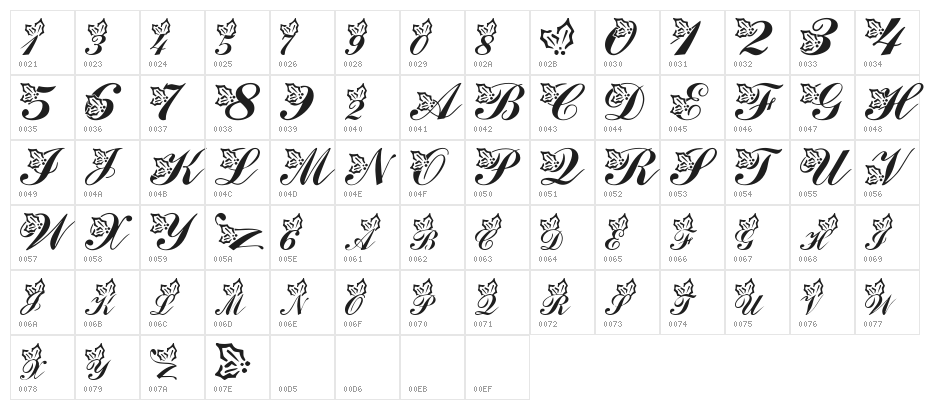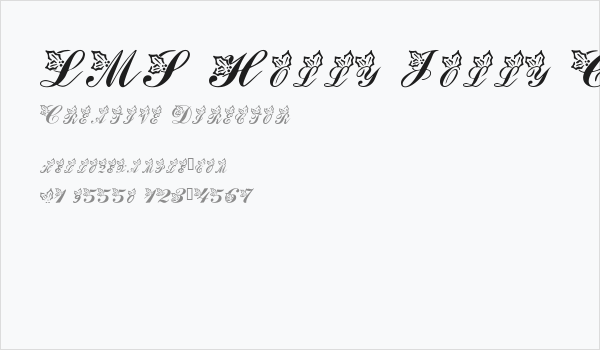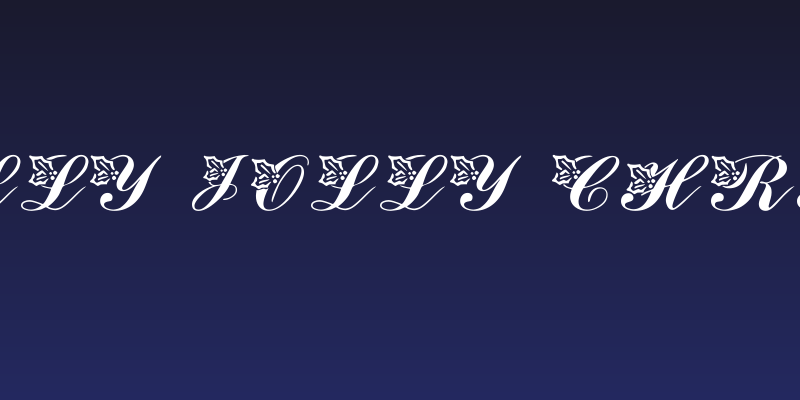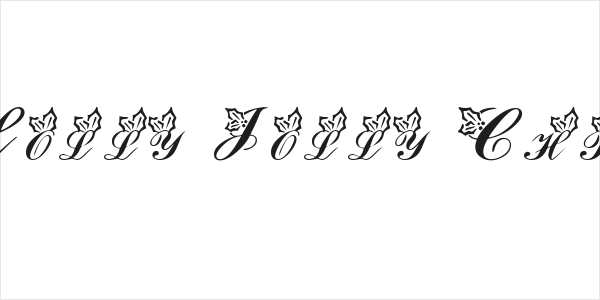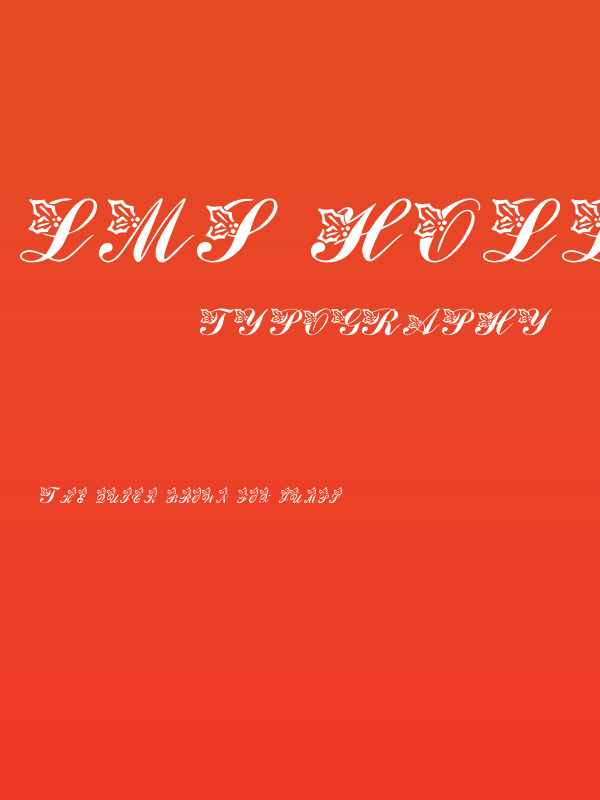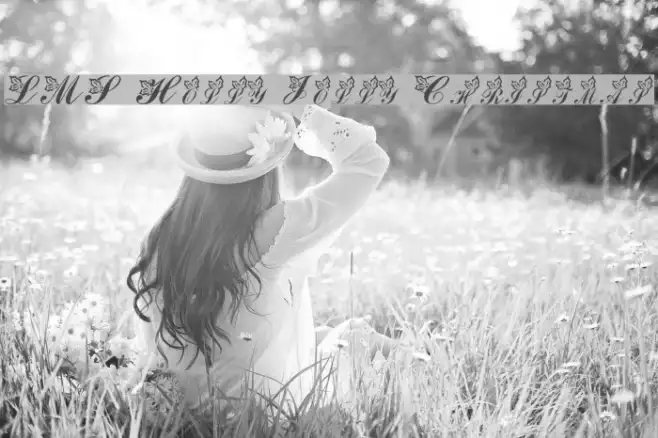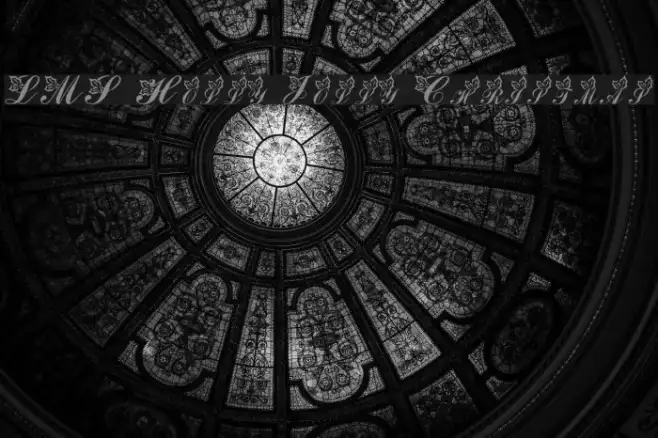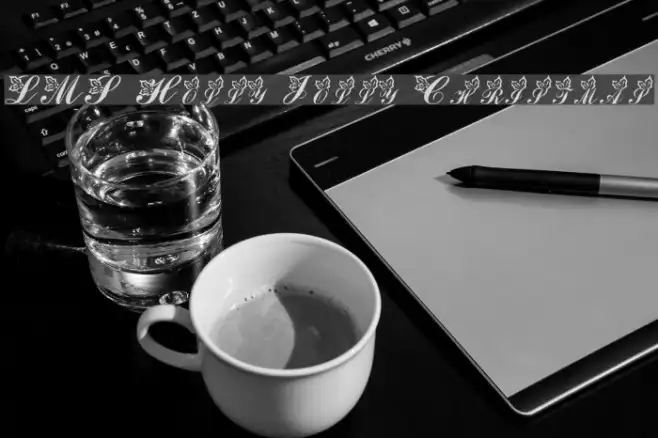
LMS Holly Jolly Christmas Font
LMS Holly Jolly Christmas Description
This decorative font features a festive and whimsical design, incorporating holly leaves and berries into the characters, creating a joyful and seasonal appearance. The uppercase letters are adorned with intricate holly motifs, adding a playful and ornate touch. The lowercase letters maintain a similar style, ensuring consistency throughout the typeface. The numbers and special characters also follow this theme, making it ideal for holiday-themed projects. The overall style is both elegant and festive, capturing the essence of a cheerful holiday spirit.
| Proposed Projects | Ideal for Christmas cards, holiday invitations, festive banners, and seasonal branding. |